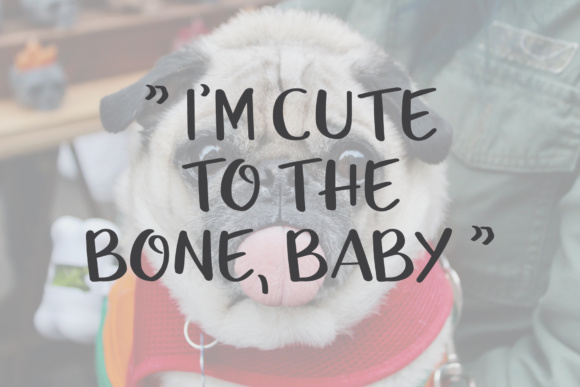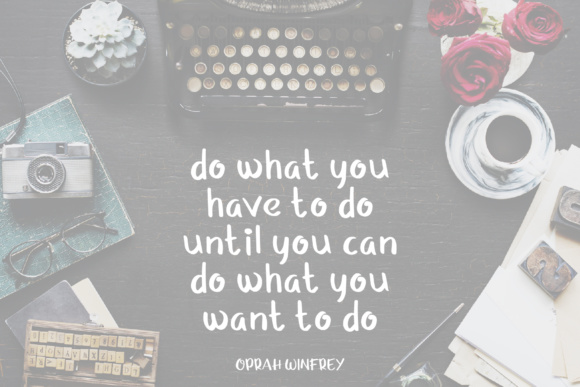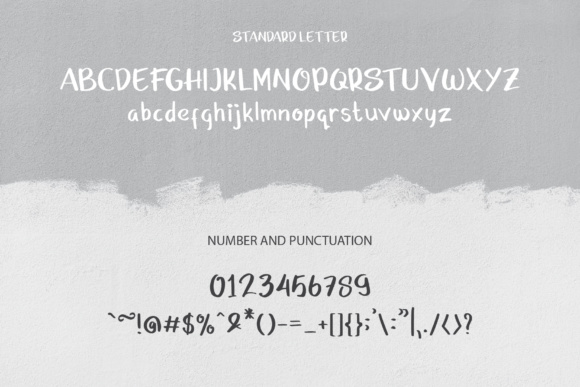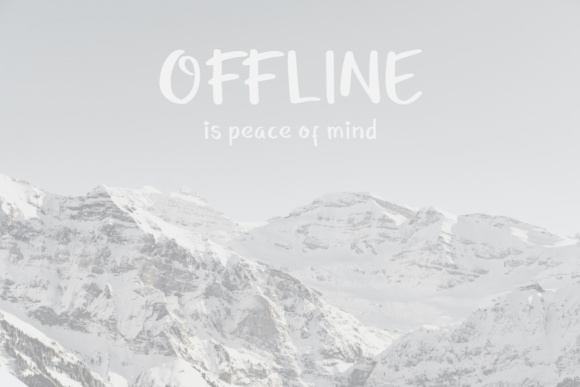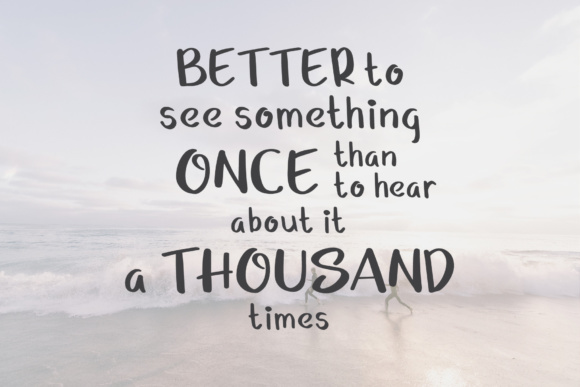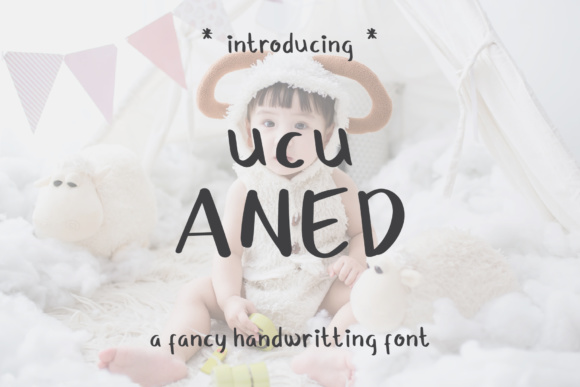
Ucu Aned Font
The Ucu Aned is a fancy handwriting font. It’s based on “ucu” or “lucu” which means cute. It’s a cheerful, cute font which can be used for various designs, such as: logos, posters, t-shirts, invitations, and much more!